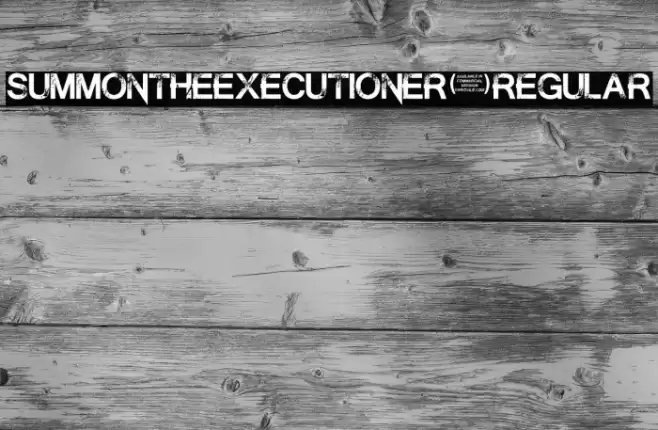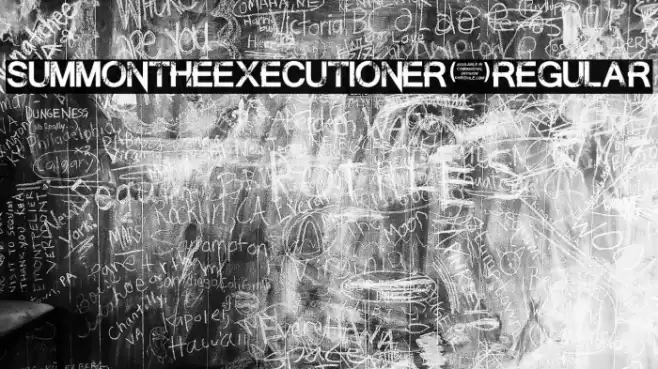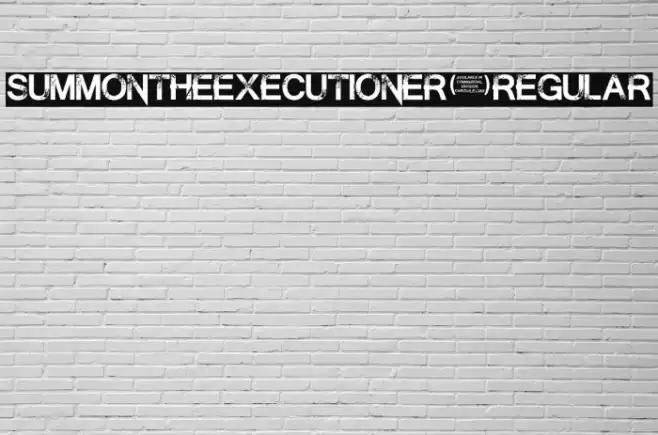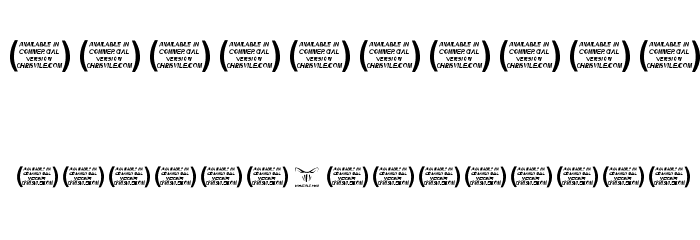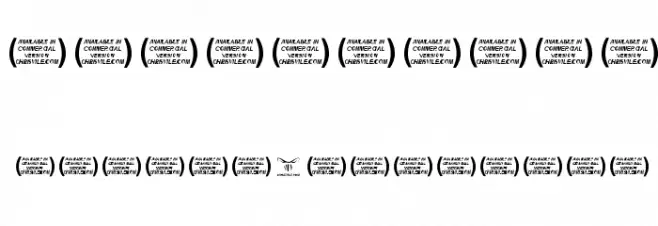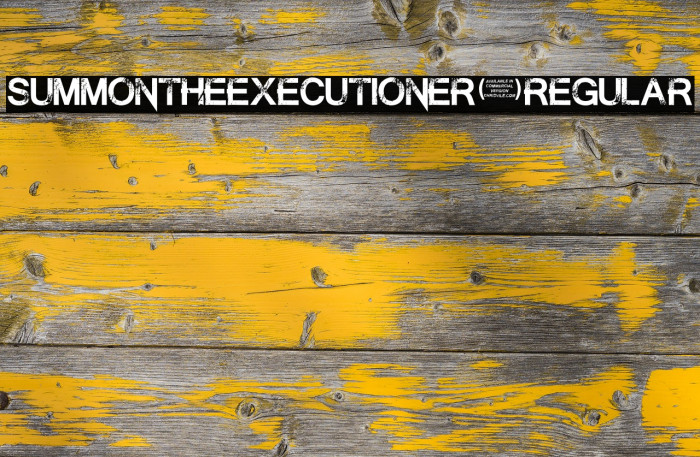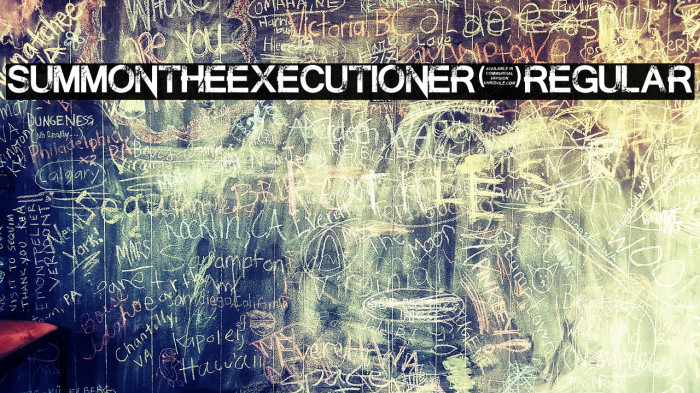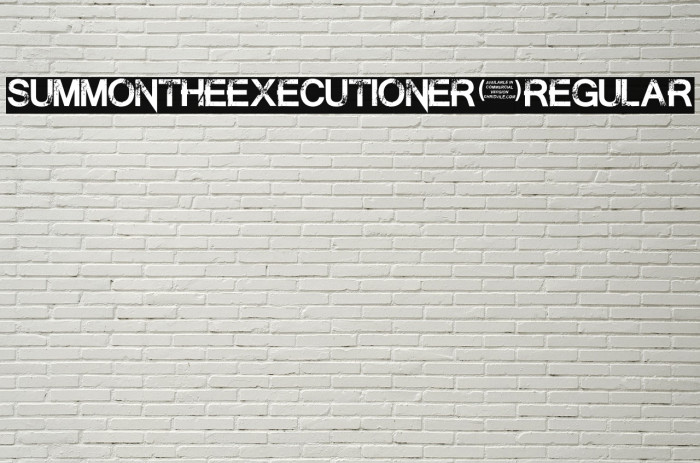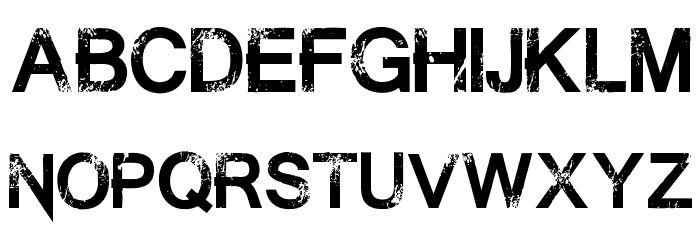
SummontheExecutioner-Regular Font
This font features a bold, distressed style with a gritty texture that gives it a rugged and worn appearance. The uppercase letters are uniform in height, with a consistent width that provides a strong and impactful presence. The distressed effect varies across each character, adding a unique and dynamic quality to the text. This font is ideal for creating a bold statement, with its rough edges and textured finish making it perfect for designs that require a touch of edginess and character.
A bold, distressed font with a gritty, textured appearance from Distorted Eroded fonts.
- Proposed Projects: Ideal for posters, album covers, branding for edgy products, or any design requiring a rugged, impactful look.